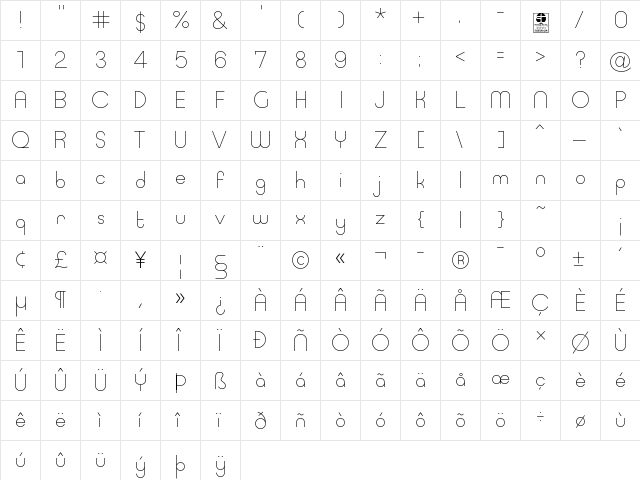
Typo Ring Light Demo Regular
| Foundry | StudioTypo |
| Designer | Mehmet Abac |
Design Context for Typo Ring Light Demo Typeface
Typo Ring Light Demo offers clean, dependable letterforms without strong stylistic allegiance, making it a practical choice for designers who need flexibility. Its slender proportions lend an understated elegance to any composition.